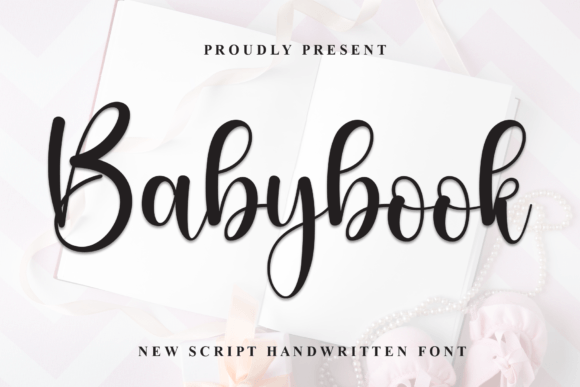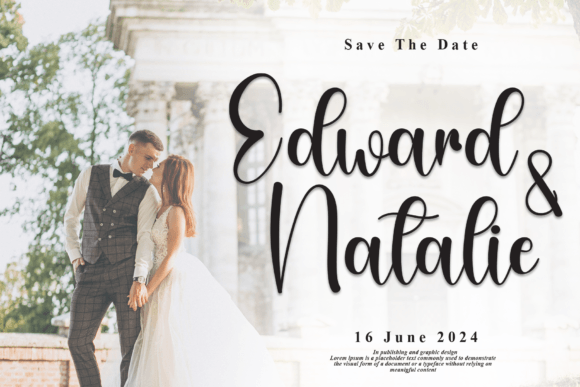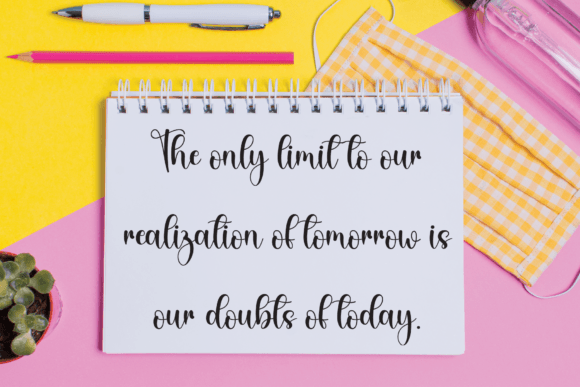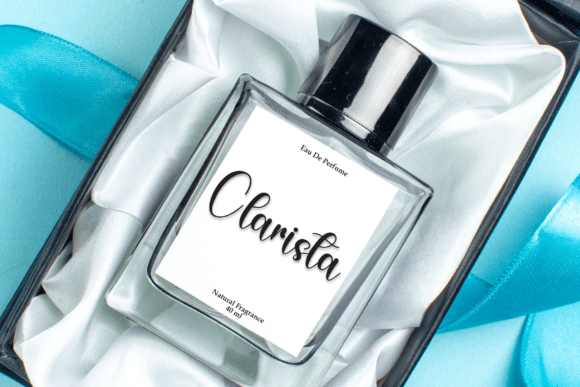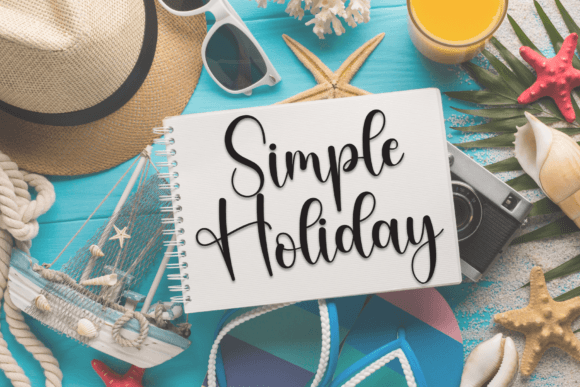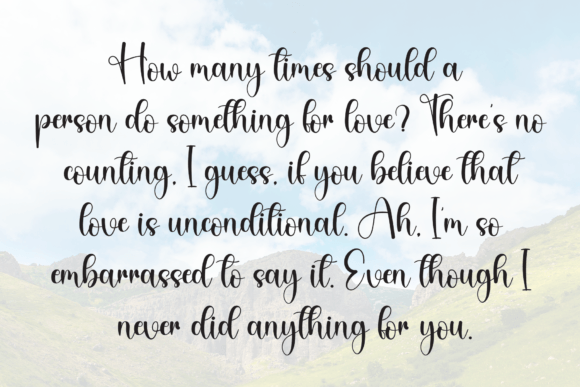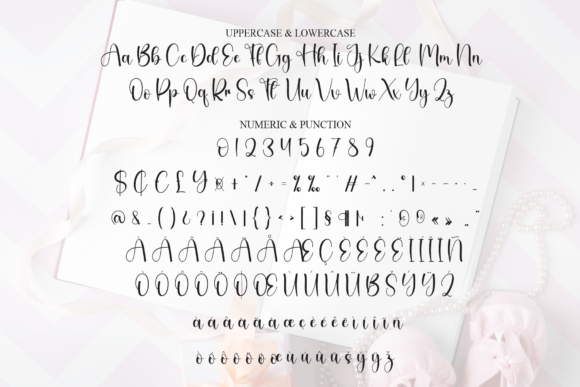
Discover the Whimsy of Babybook Font
As a designer, there’s nothing quite like the thrill of creating a new project from scratch. The blank canvas, the endless possibilities – it’s a feeling that never gets old. And sometimes, it’s the smallest details that can make all the difference. Like the perfect font, for instance. One that can elevate your design from ordinary to extraordinary. For me, that font is the Babybook Font – a stylish handwritten script that exudes elegance and charm.
With its fluid strokes and natural flow, the Babybook Font is perfect for adding a personal touch to invitations, branding, or social media. Whether you’re a seasoned designer or just starting out, this font is a valuable asset to have in your toolkit. Its unique style brings a sense of warmth and creativity to any design, making it a must-have for anyone looking to stand out in a crowded field.
Babybook Font Key Features
- Font Family: Babybook Font is a unique, hand-drawn font designed specifically for baby-related content.
- Unique Characteristics: Features playful, cursive script with intricate details, making it perfect for baby-themed designs, invitations, and announcements.
- Character Set: Includes a wide range of characters, including uppercase and lowercase letters, numbers, punctuation marks, and special characters.
Designer Review: Babybook Font
Overall, I think the Babybook Font is a nice addition to any design project, but it’s not without its limitations. Let’s dive in!
- Soft, rounded edges: This font is perfect for designs that need a touch of whimsy and playfulness.
- Large x-height: The characters are nice and tall, making it easy to read, even at smaller sizes.
- Good for body text: Babybook Font works well for longer blocks of text, like paragraphs or captions.
- Lack of bold weight: I found it difficult to create a clear hierarchy with this font, as there’s no bold version to emphasize important text.
- Not ideal for headings: While it’s great for body text, Babybook Font doesn’t have the same level of impact for headings, which can make them feel lost in the design.
- Not a great choice for formal designs: This font is best suited for casual, playful designs, and may not be the best fit for more formal projects.
Overall, I think Babybook Font is a nice addition to any design project, but it’s not a one-size-fits-all solution. Use it when you need a playful, whimsical feel, and be aware of its limitations when choosing a font for your design.